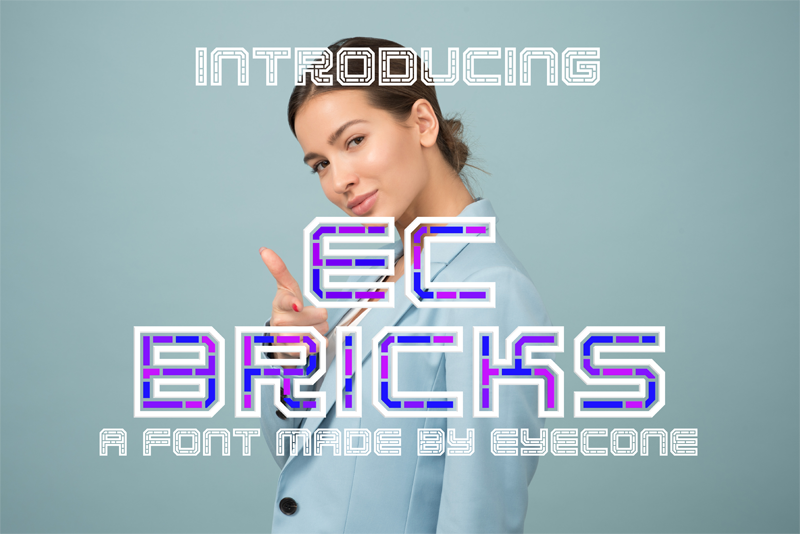
Font name: | EC Bricks |
Author: | eyecone |
EC Bricks is a decorative font best for logo, Title and clothing line Designs. For commercial use you must pay through PayPal. and get the updated ttf file. jsongarnica@gmail.com |